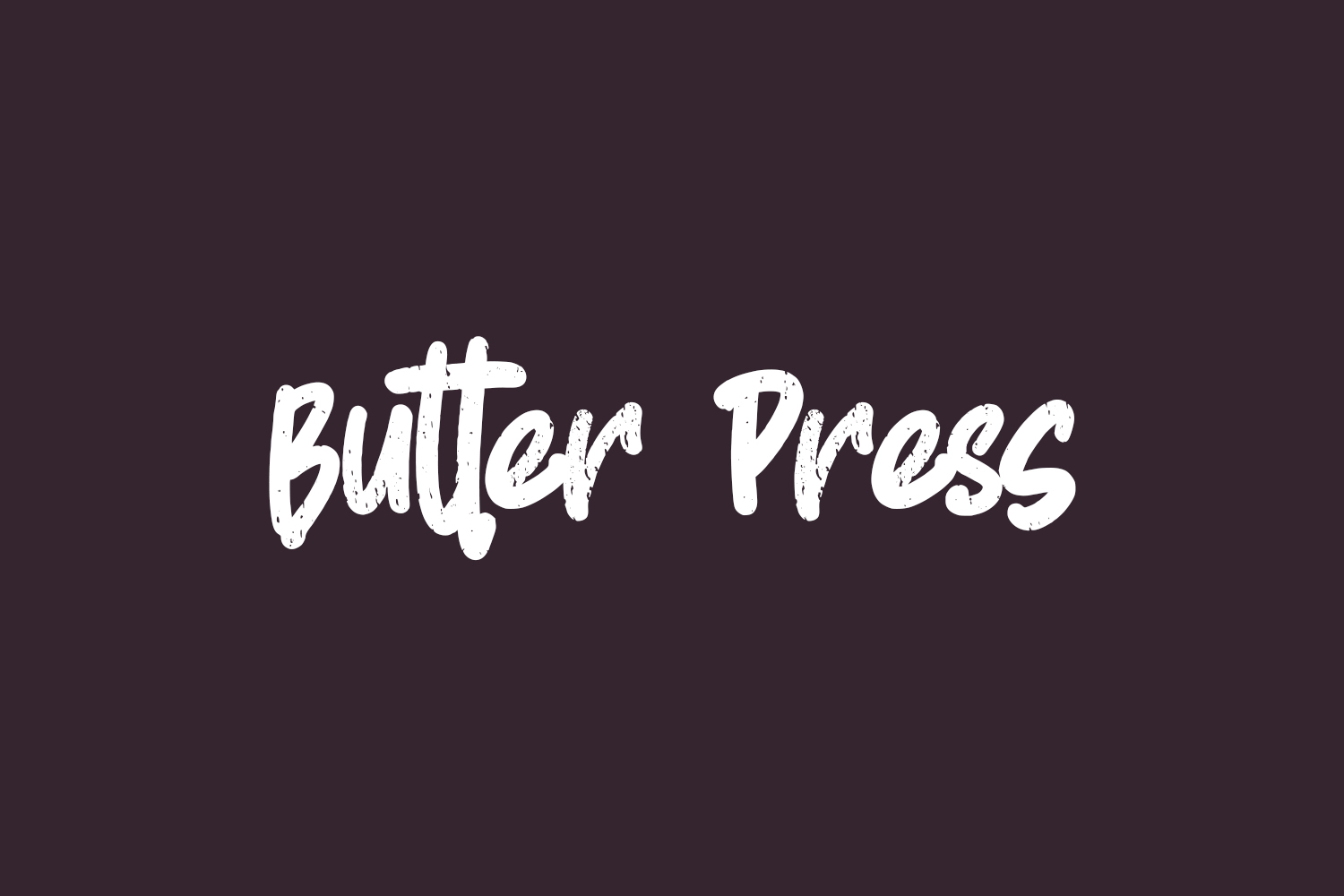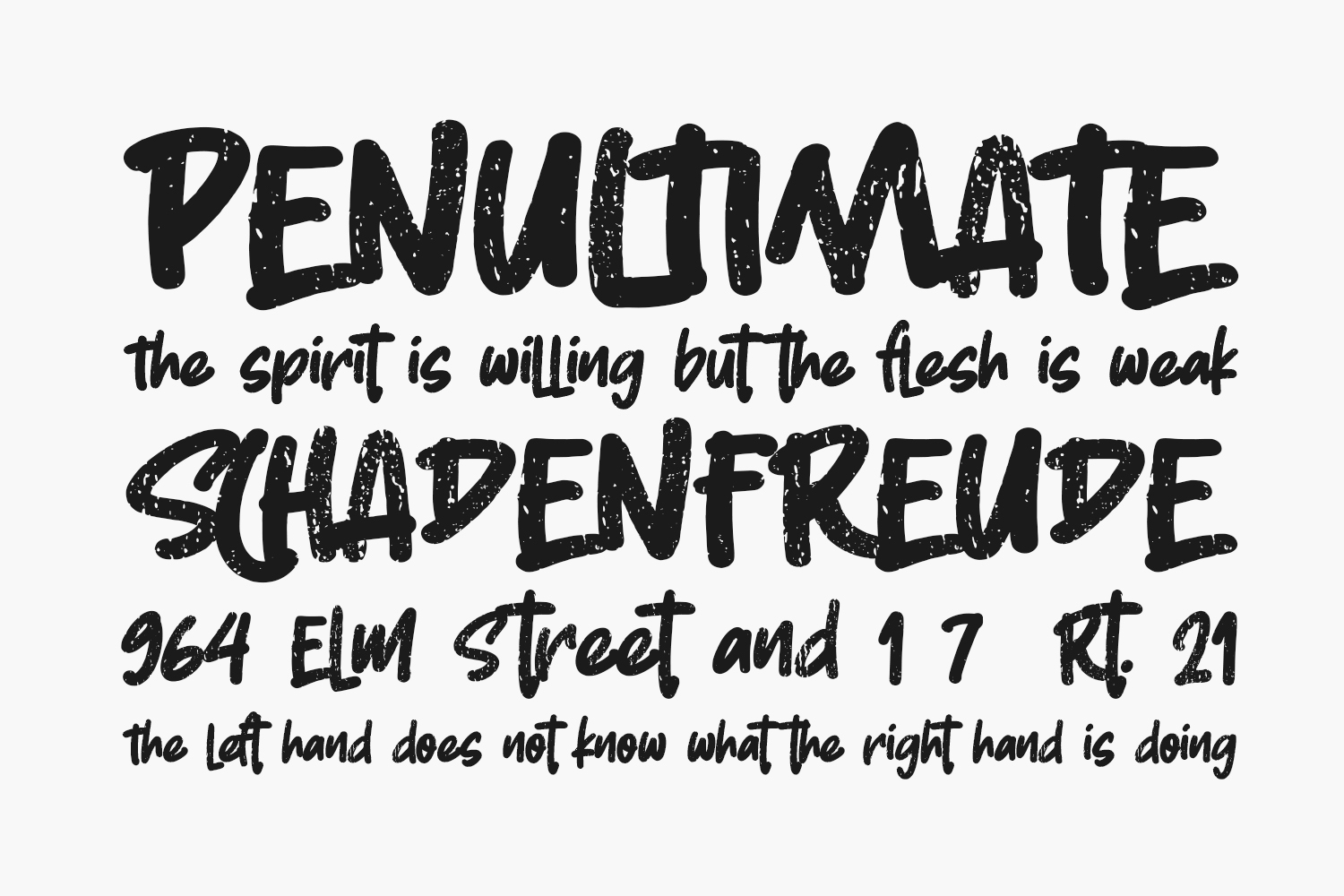
Butter Press Free Font is a playful, retro and crafty display font. It works great for posters, branding, labels and many other designs that require a quirky touch.
Designed by Gassstype